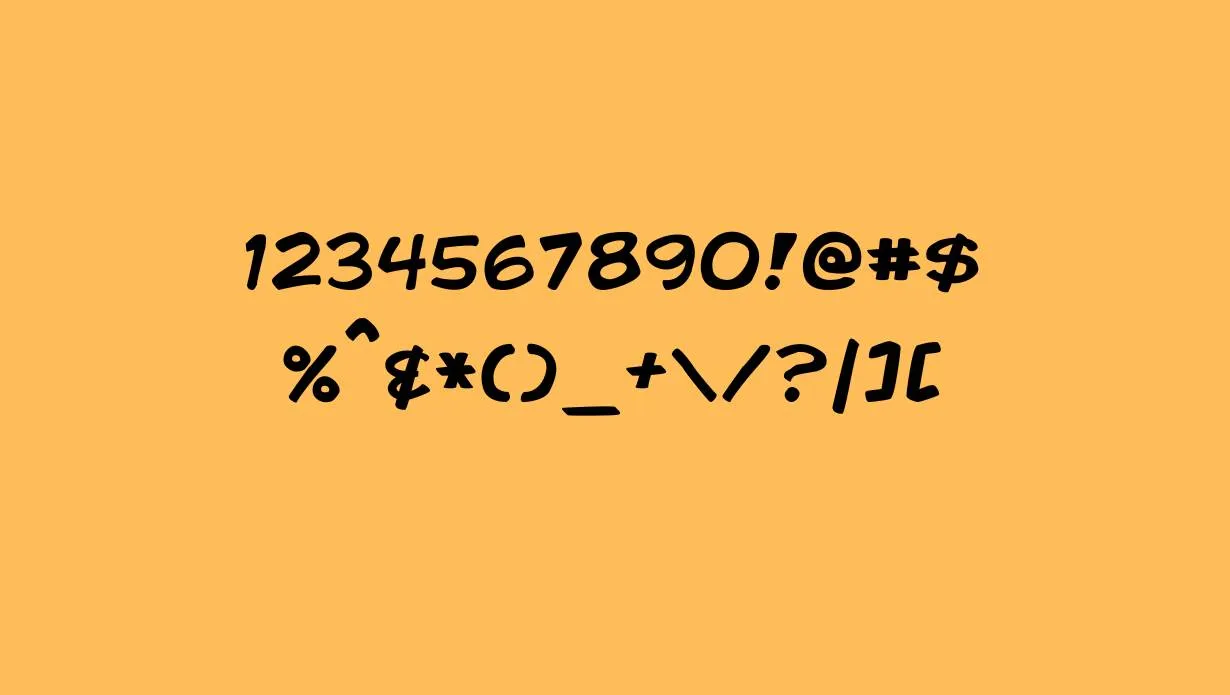
In this section, we’re going to introduce a cute and classic font style named Comic Book Font, a Fancy font that was designed by Pixel Saga.
This font has a similar style of lettering to a typical comic classic book. This typeface was modified in 2016 and some changes happened such as improved spacing and kerning.